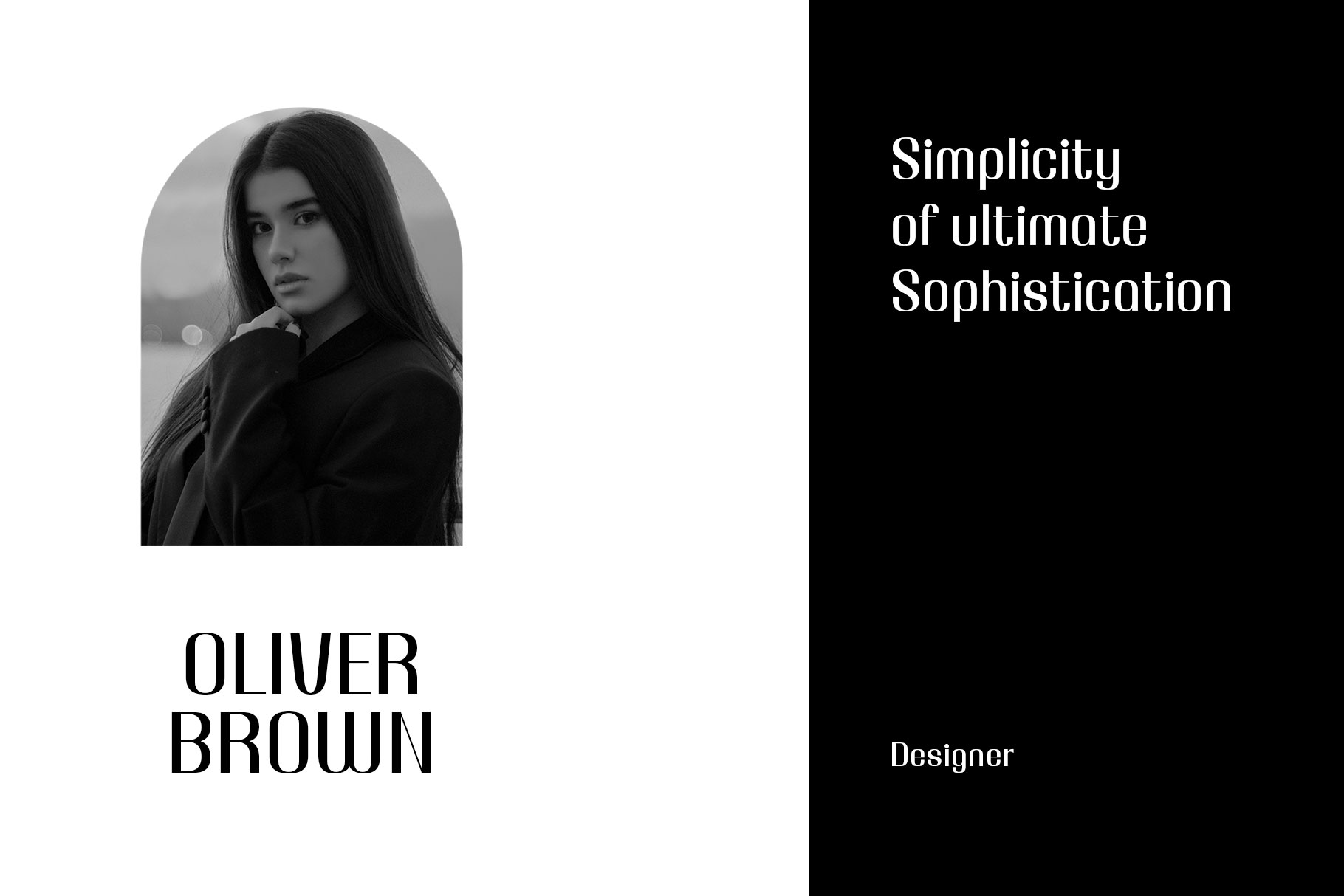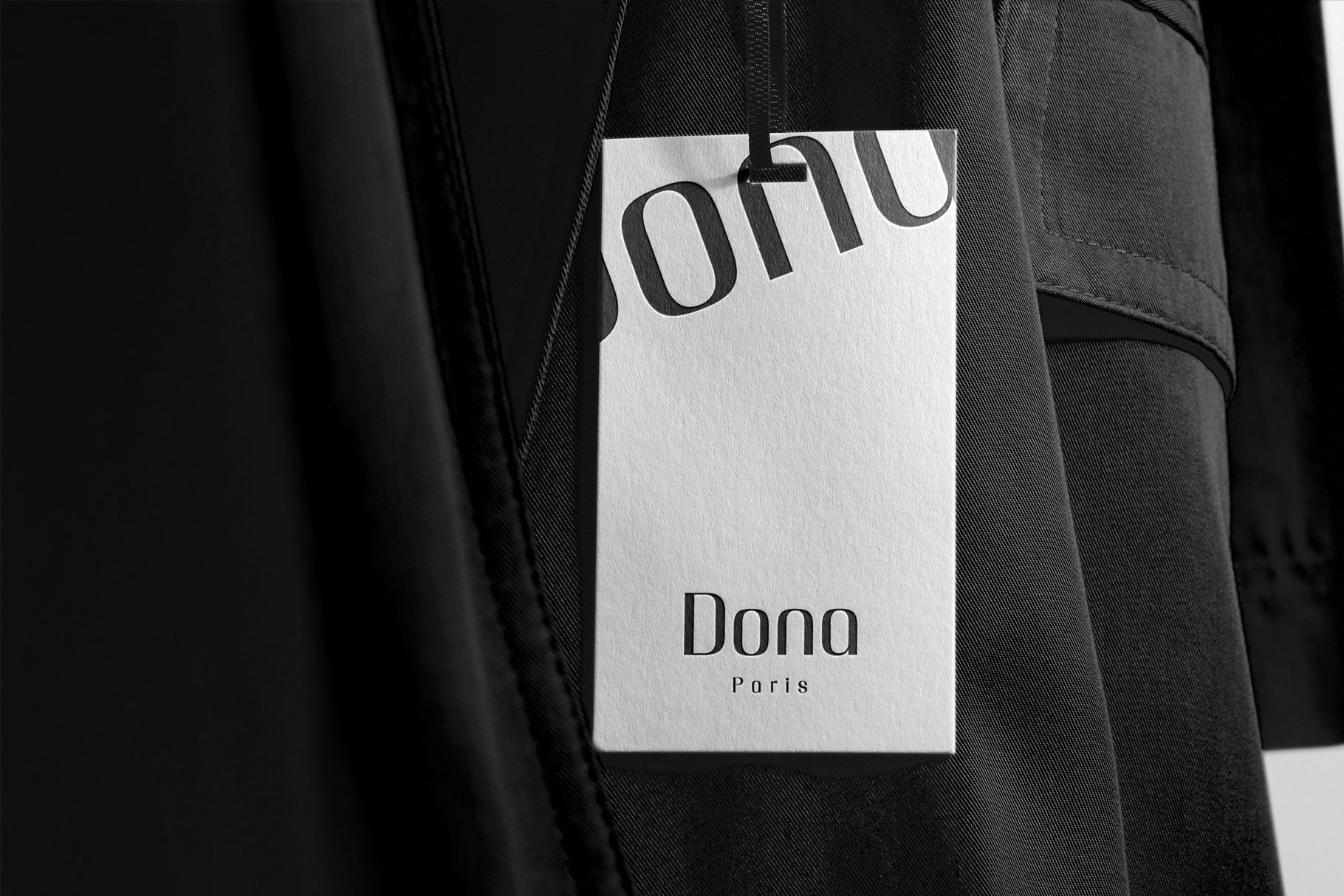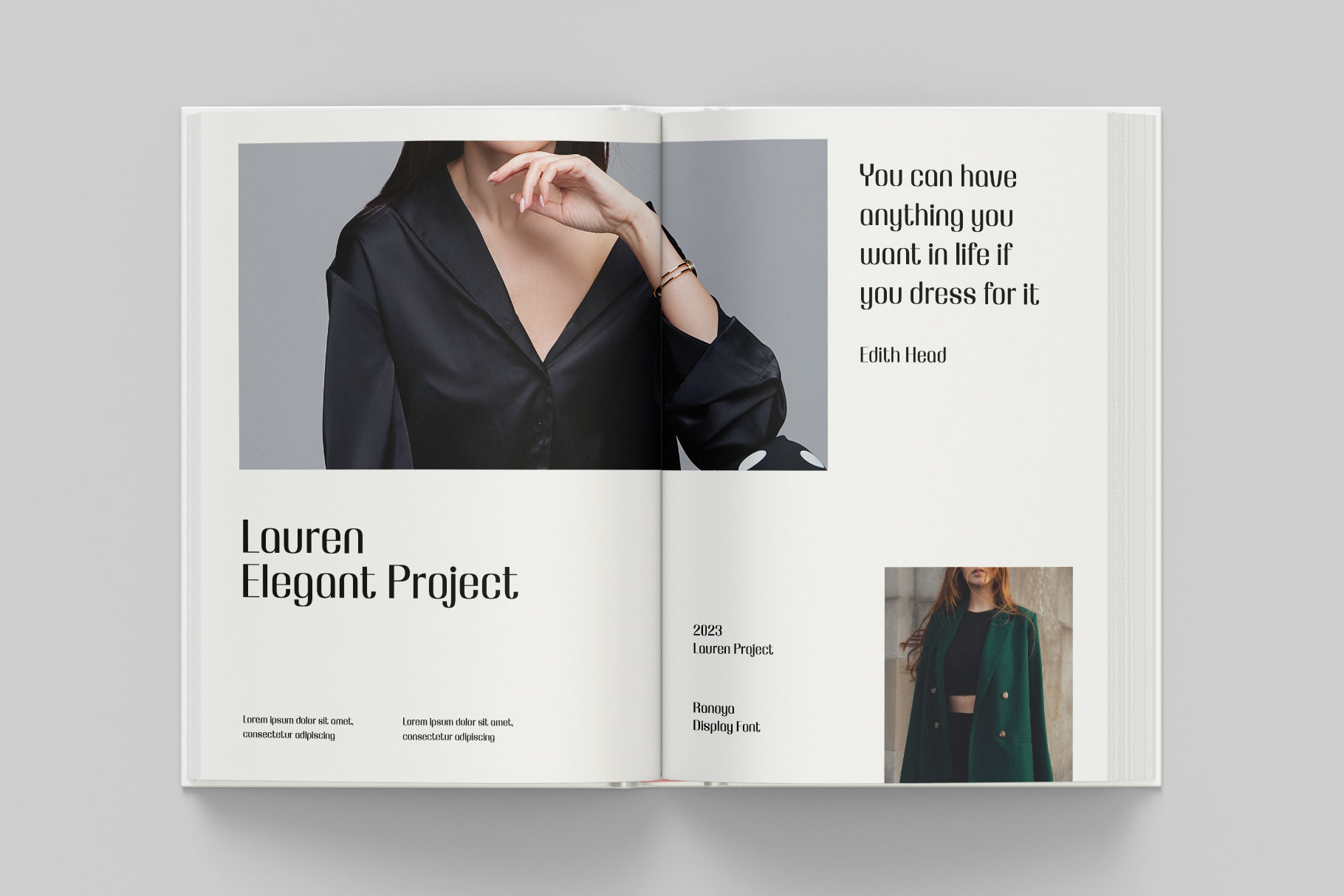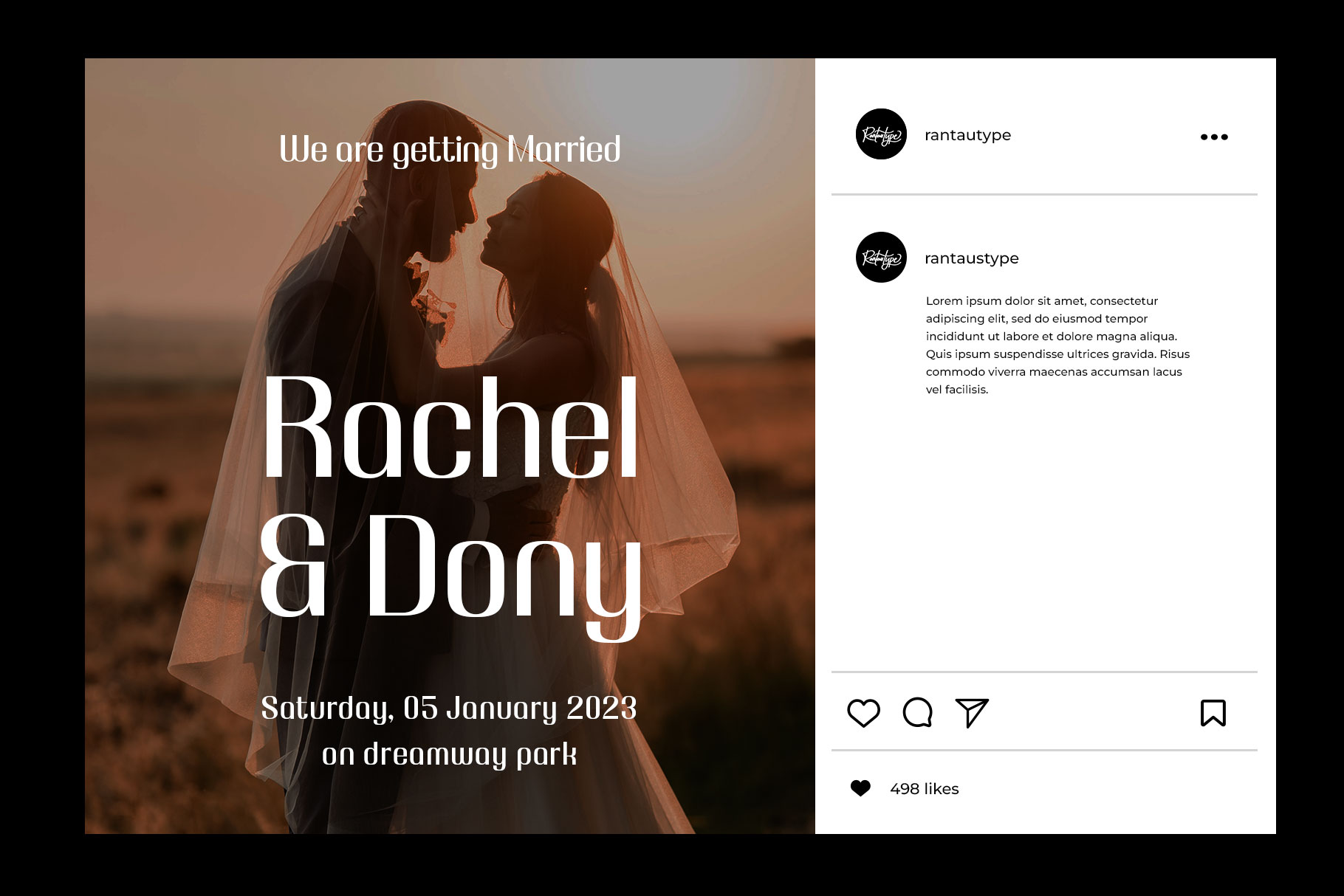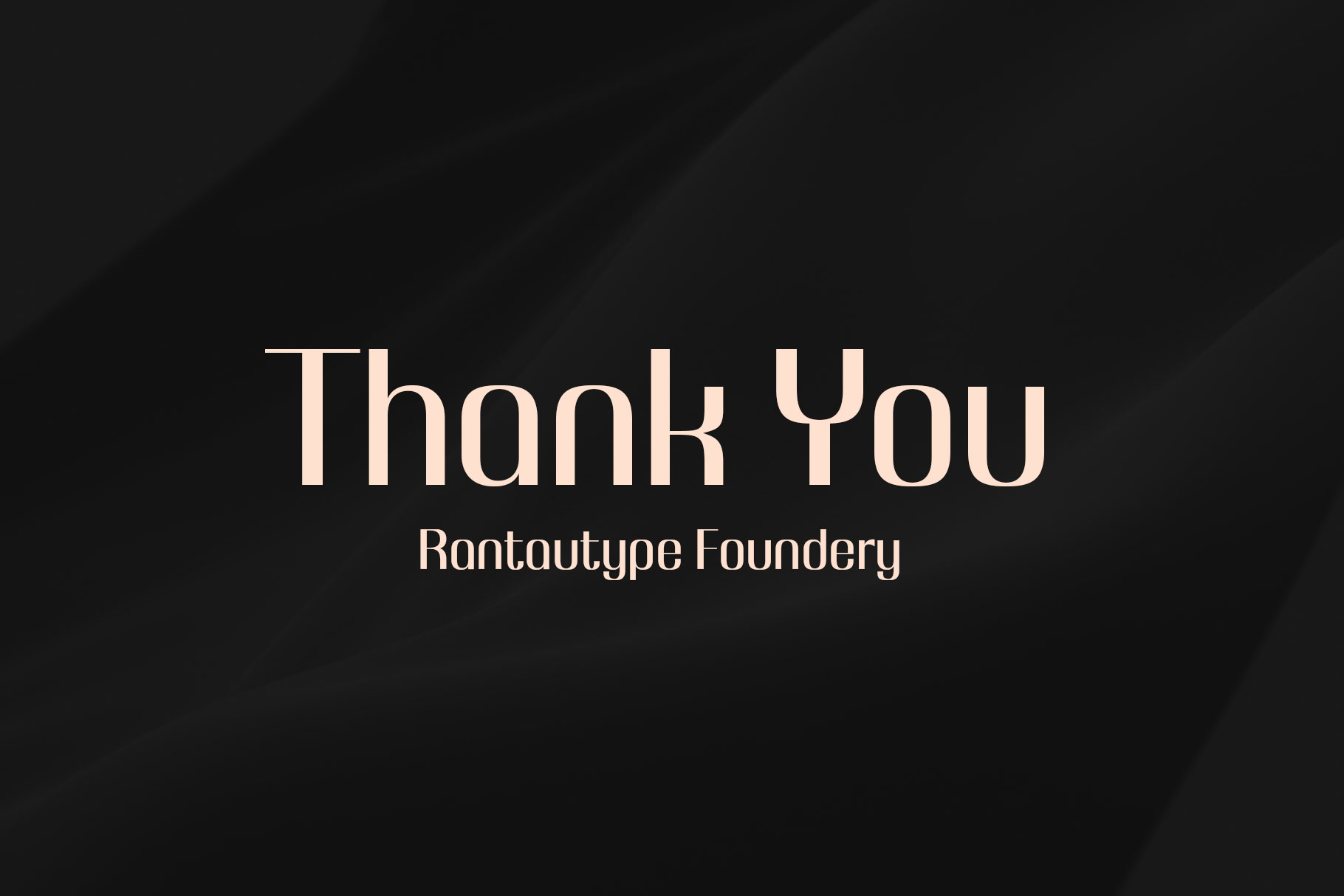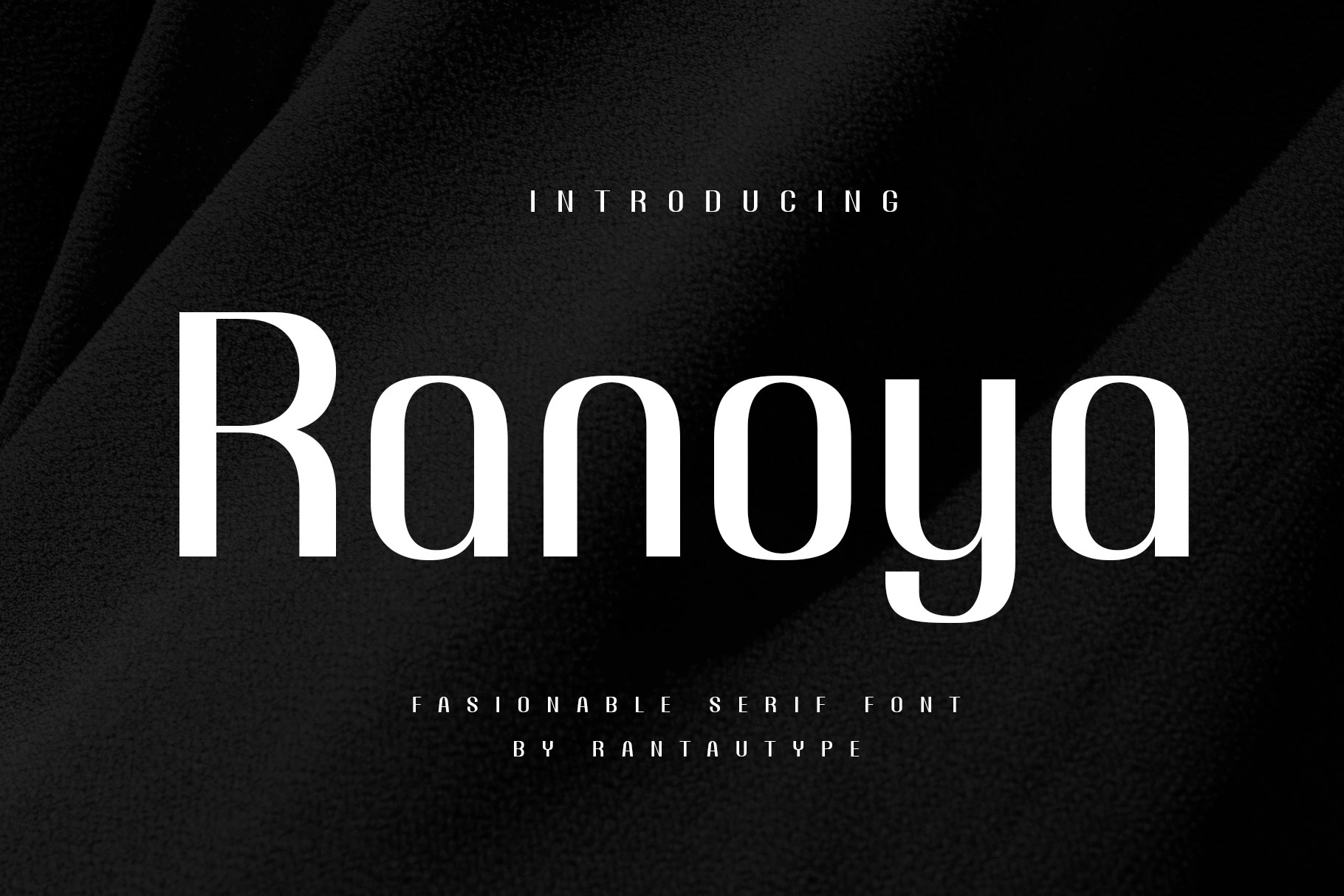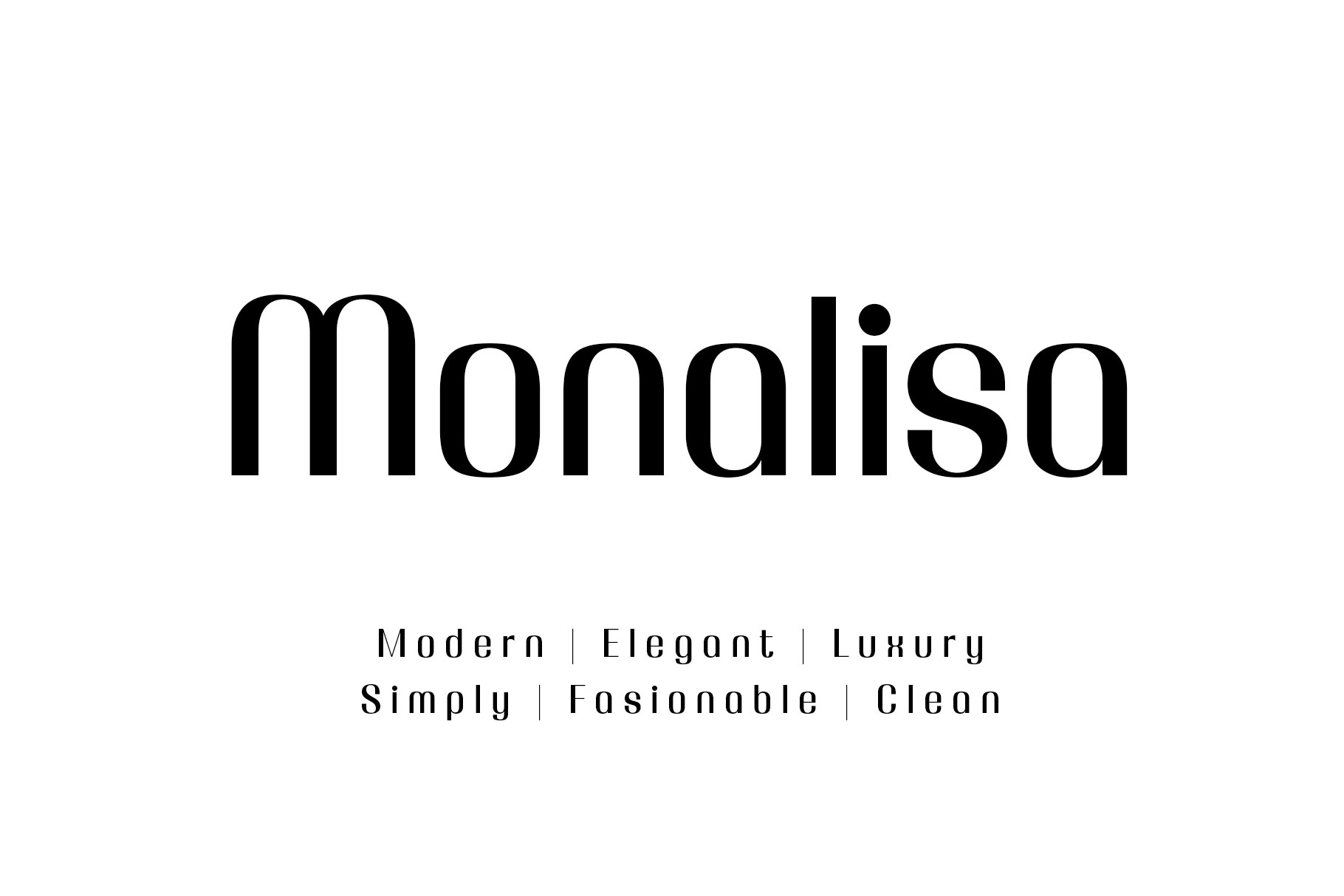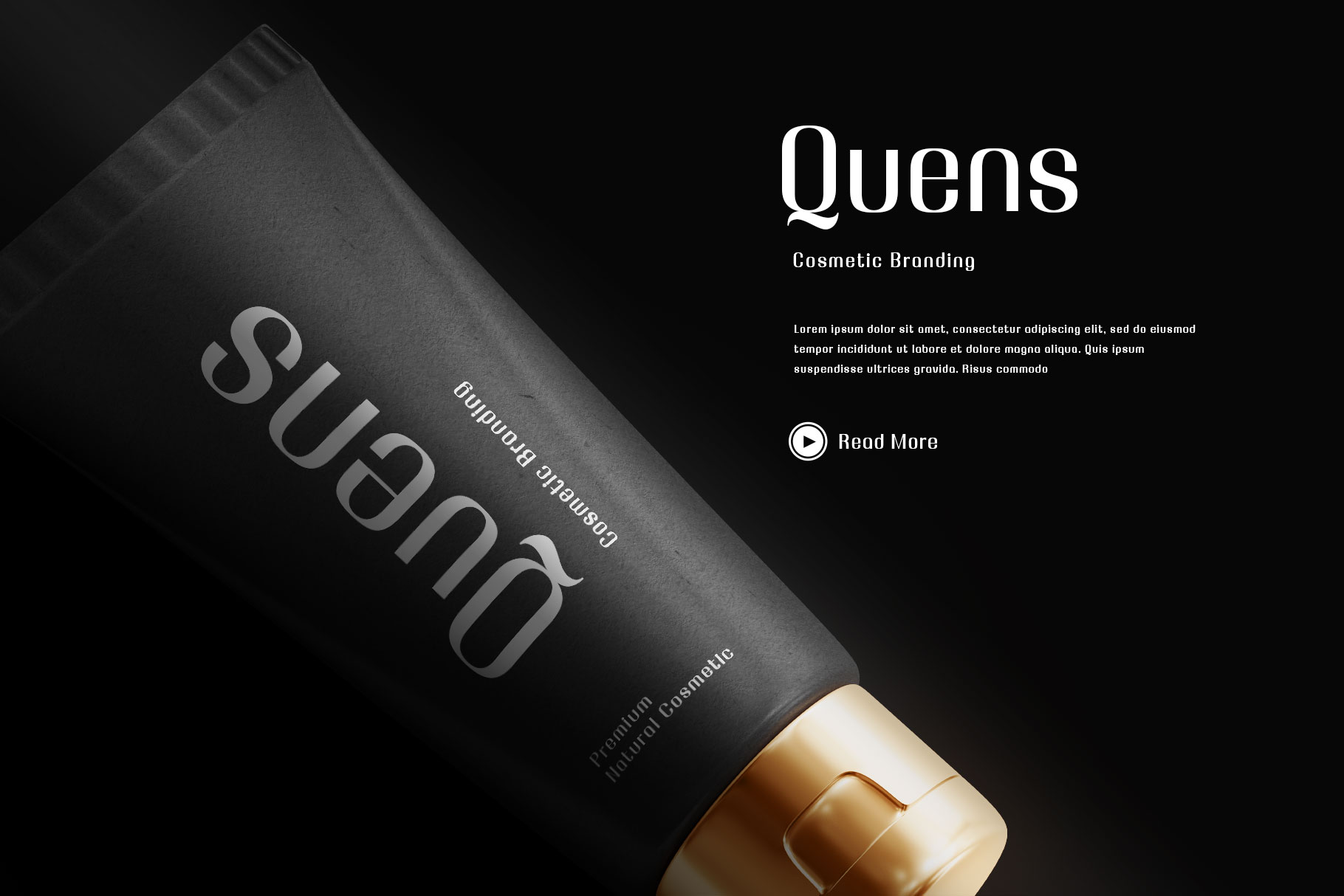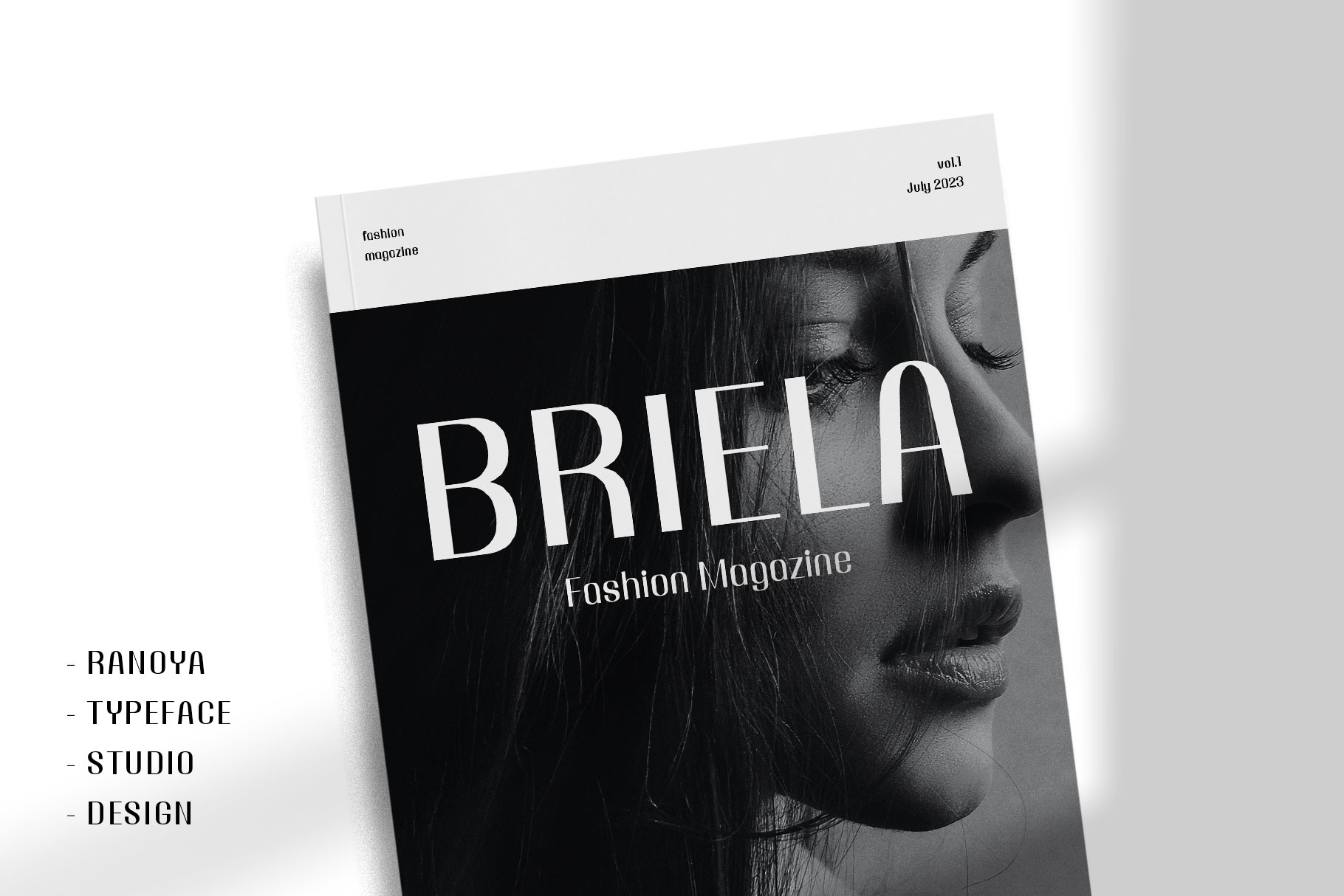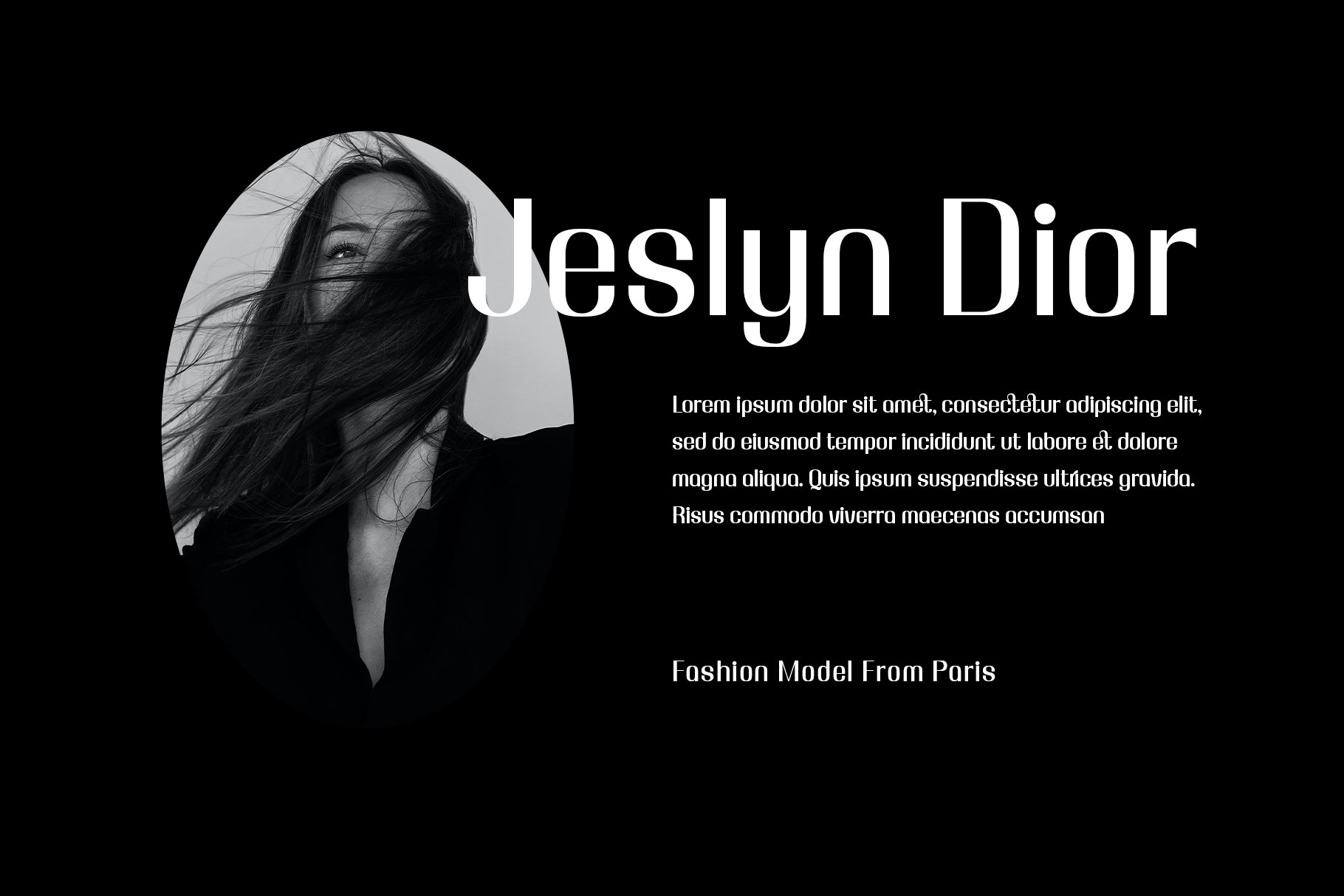
Ranoya Fasionable Serif Font
Ranoya – a elegant fasionable display serif with Sophisticated shape. We love how shape it look make it professional. We keep this font looks fashionable, elegant, luxury, premium, modern, catchy and easy to use. Ranoya come with two font ( reguler and italic ), alternate, ligature and multinggual accent support.
Ranoya is beautiful choice for any creative endeavor to make perfectly suitable for creating elegant, chic, lifestyle design such as logos, title, cover, branding, display and magazine, corporate, business project, wedding project, advestising project and much more. Now you can choice ranoya to make your branding stand out!